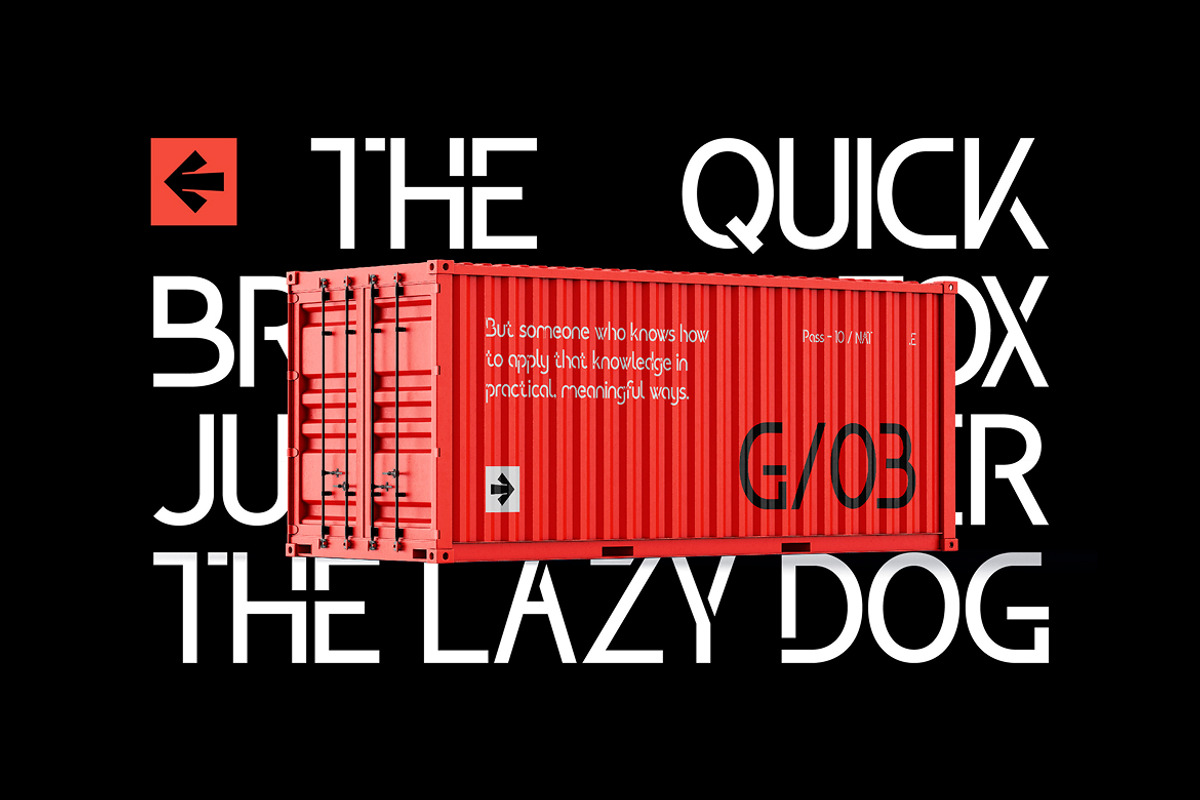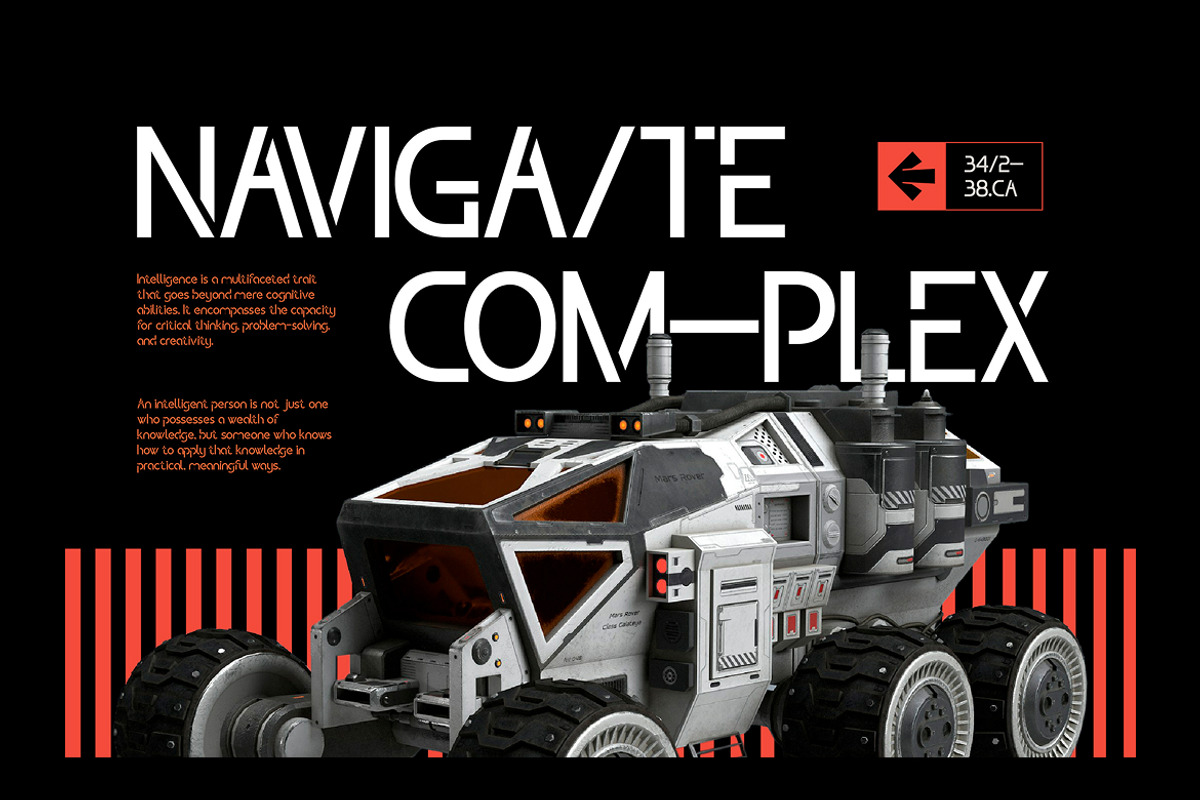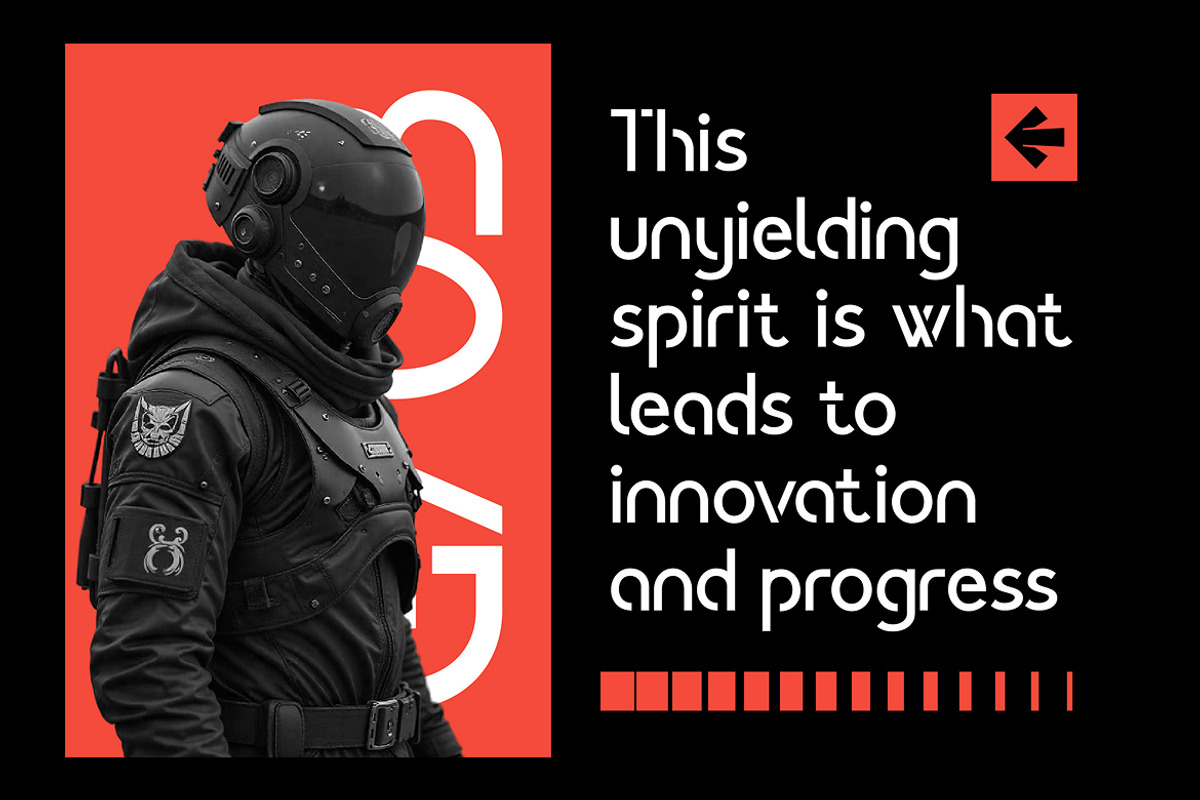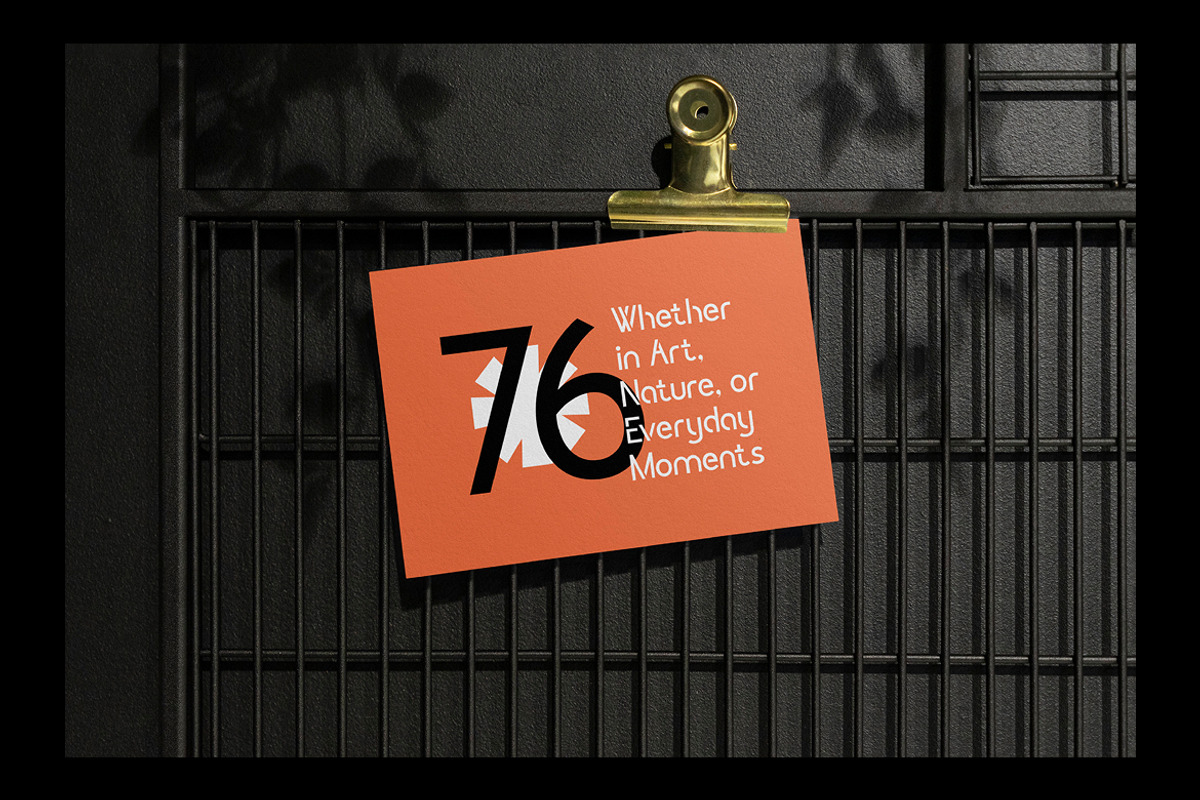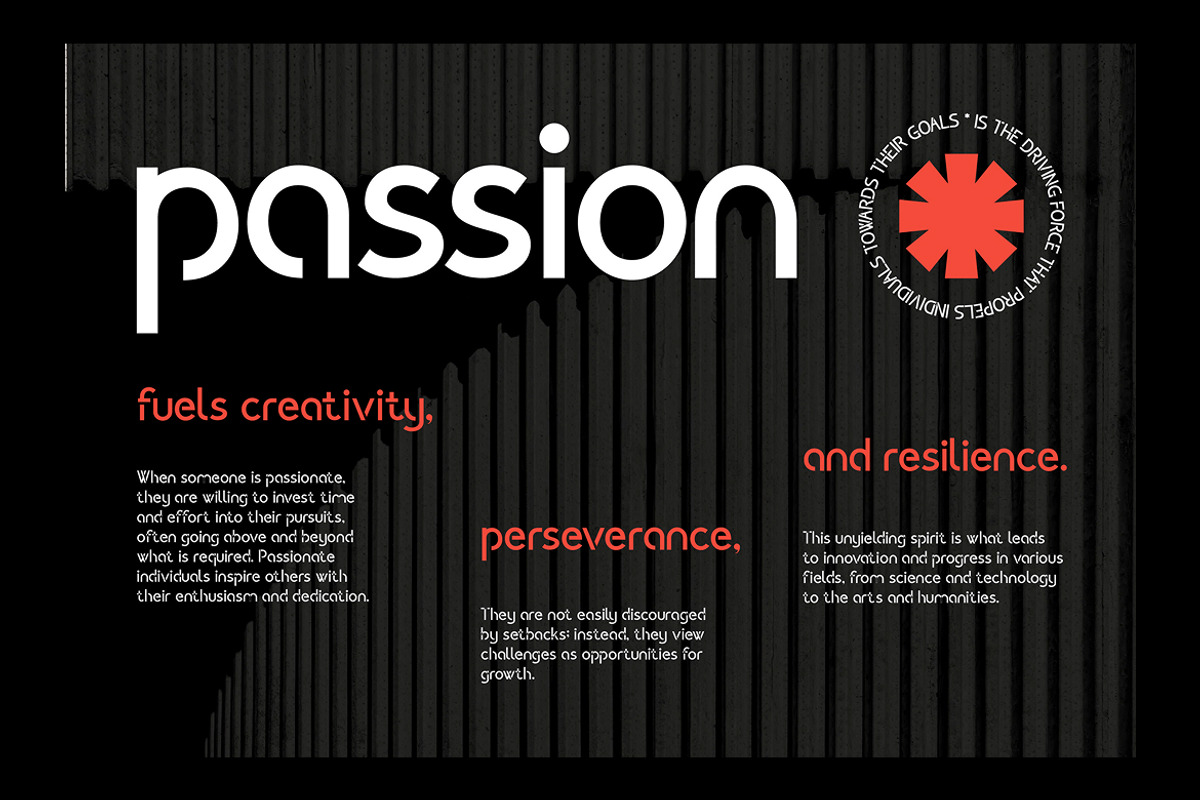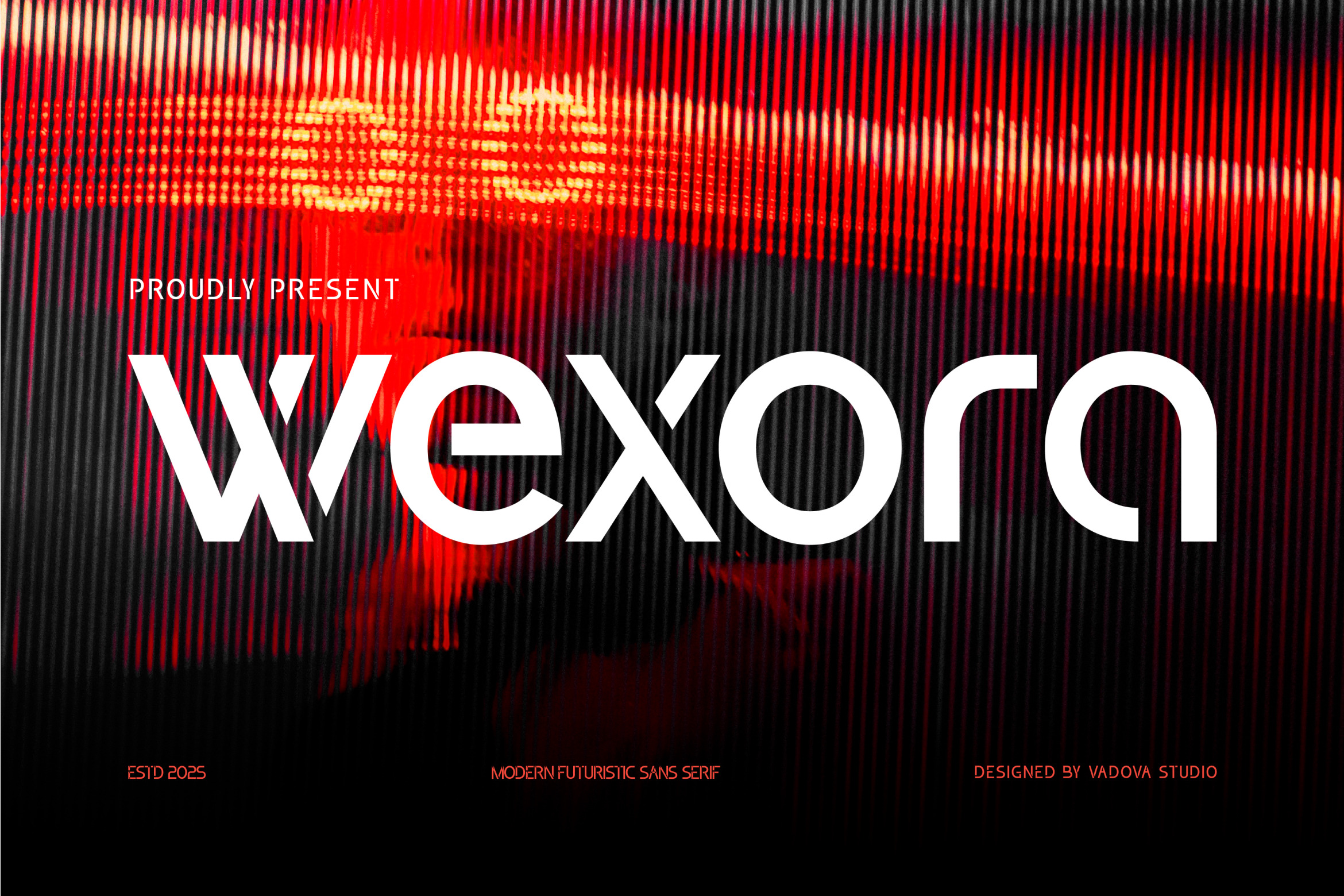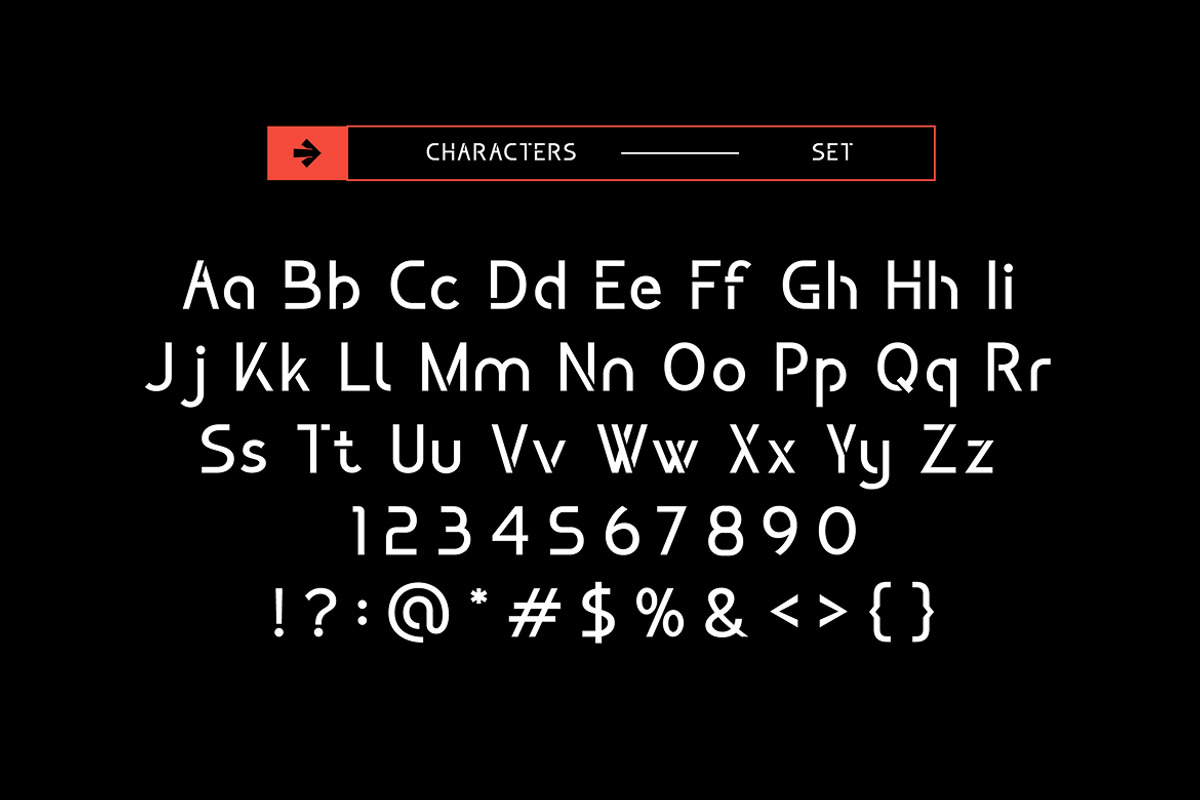
Wexora Futuristic Sans Serif Font
Wexora is a sleek, futuristic sans serif typeface that blends minimal elegance with geometric rigor. It’s designed with a vision-forward mindset, making it ideal for tech-based design, futuristic branding, and contemporary editorial layouts. The letterforms are clean and sharp, yet slightly experimental—delivering a balance between precision and creative flair.
Step into the future of typography with Wexora—a sharp and stylish sans serif built for digital dominance. Whether you're launching a tech brand or designing a cyberpunk poster, Wexora gives your text the clarity, control, and character needed to lead in a fast-paced world.
Every character in Wexora reflects a forward-thinking approach—ideal for industries focused on innovation, digital transformation, and bold visual storytelling.
Main Features
- Uppercase & Lowercase characters
- Numeral & Punctuations
Suitable For : Technology & Innovation Branding, Futuristic UI/UX, Sci-Fi Posters and Covers, Creative Agency Presentations, Motorsport and Space Exploration Graphics, Experimental Web and App Design, Esports & Streaming Graphics.